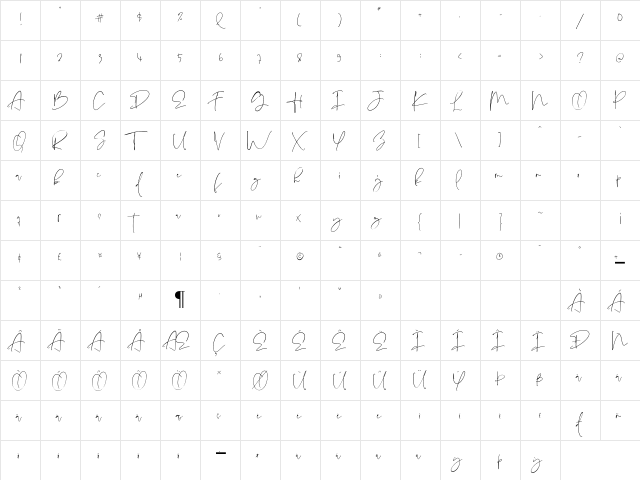
Karlena Hudson Regular Font Preview
Karlena Hudson Regular
Karlena Hudson Regular Font Details
| Designer | Afridah Ciputra |
Design Context for Karlena Hudson Typeface
Karlena Hudson is a composed and adaptable typeface that performs quietly and consistently across a wide range of design contexts.